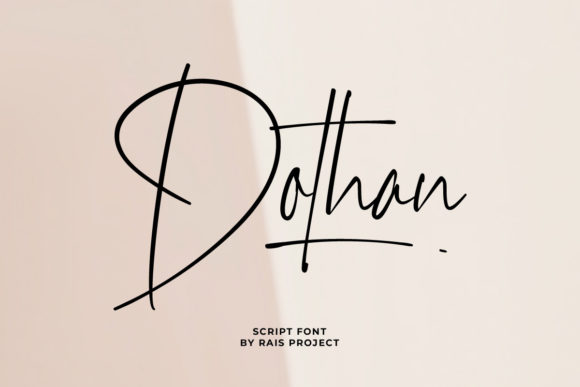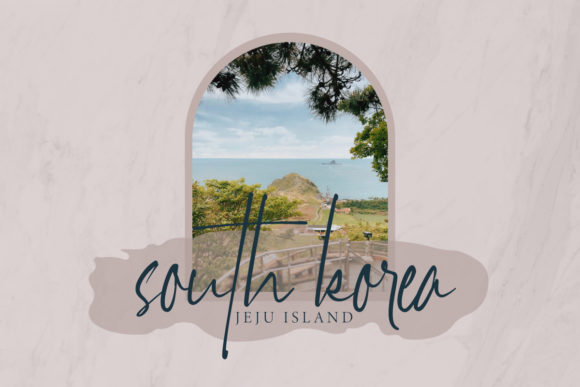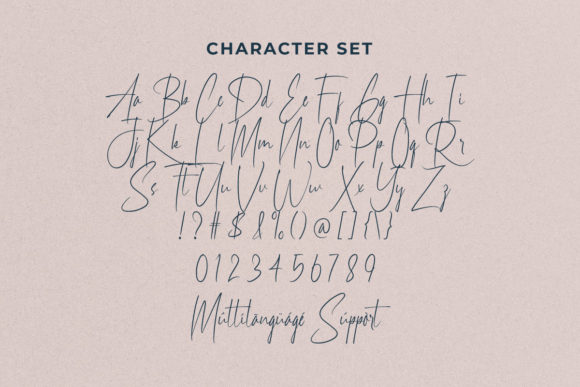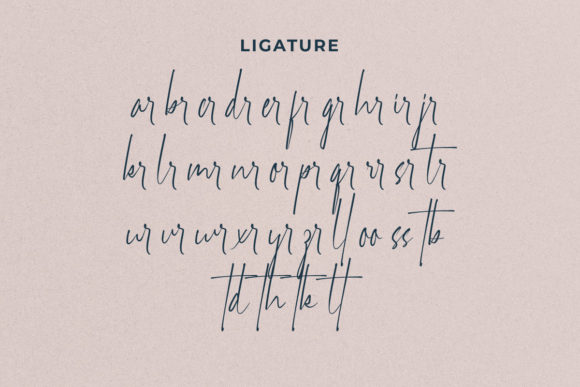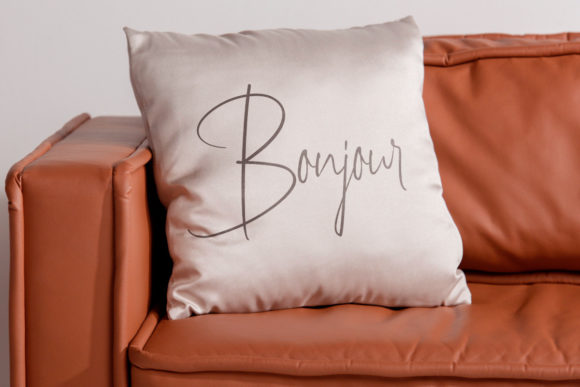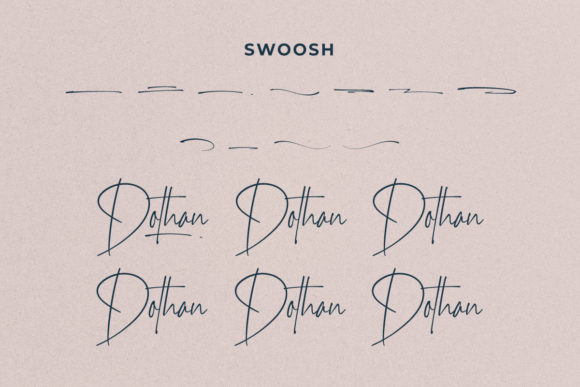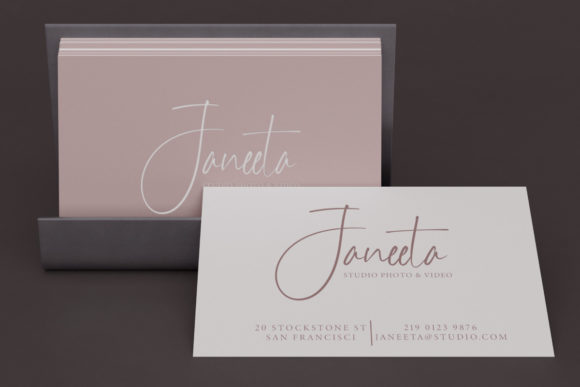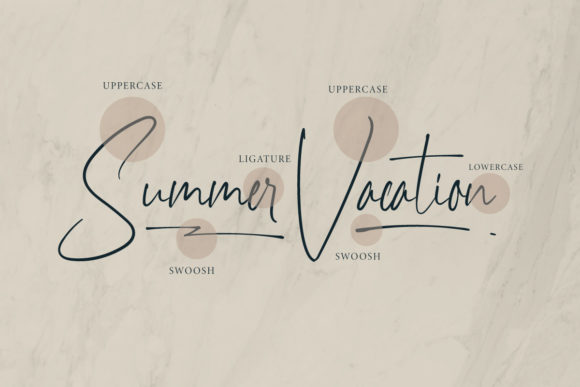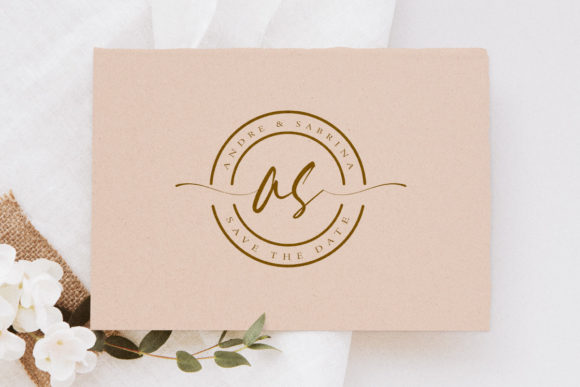
Dothan Font
About Dothan Font
Dothan is a sweet script font with a relaxed theme, featuring thin characters. This font is PUA encoded which means you can access all of the glyphs and swashes with ease!